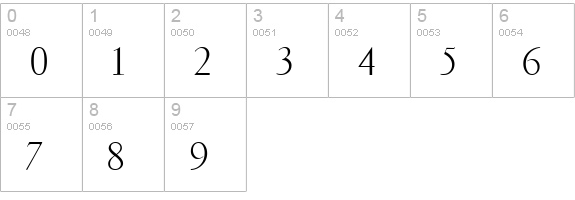
PFGaramond Classic is a timeless and elegant serif font that exudes sophistication and grace. Its classic design features delicate serifs and graceful curves that make it perfect for projects requiring a touch of timeless charm. Whether used for formal invitations, branding materials, or editorial designs, PFGaramond Classic adds a touch of class to any project. The best part about PFGaramond Classic is that it is completely free! You can easily download this exquisite font from FontsMarket.com without having to spend a penny. Embrace the beauty and versatility of PFGaramond Classic in your designs and let its classic appeal elevate your work to new heights.